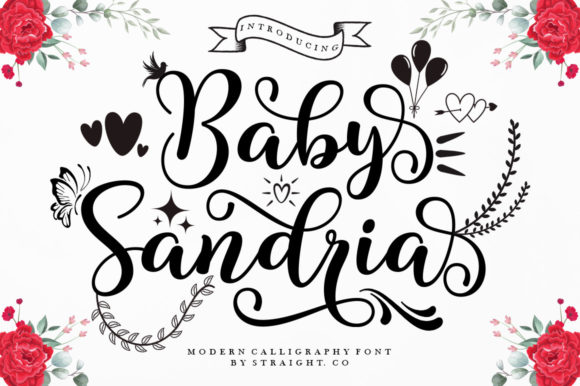
Journey into the realm of elegance and grace with Baby Sandra Font, a script font that dances across the page like a ballerina. Its delicate strokes, inspired by the art of calligraphy, evoke a sense of timeless sophistication, making it the perfect choice for those seeking to add a touch of refinement to their designs.
Crafted with meticulous attention to detail, Baby Sandra Font boasts a captivating flow that draws the eye and invites the reader to linger. Its harmonious curves and well-balanced characters create a visually pleasing aesthetic that elevates any project, whether it be a wedding invitation, a heartfelt letter, or a captivating social media post.
With its PUA encoding, Baby Sandra Font offers effortless access to a treasure trove of glyphs and swashes, empowering you to unleash your creativity and add an extra layer of charm to your designs. Experiment with different combinations, let your imagination soar, and watch as your words transform into works of art.
Step into a world where elegance meets versatility with Baby Sandra Font. Its adaptability knows no bounds, seamlessly blending with a myriad of design styles. From classic and traditional to modern and contemporary, Baby Sandra Font effortlessly enhances any project, adding a touch of understated luxury.
Unleash the power of Baby Sandra Font today and embark on a journey of creative expression. Let your designs blossom with grace and sophistication as you immerse yourself in the beauty of this enchanting script font.